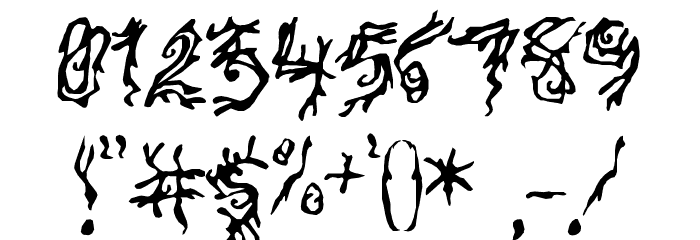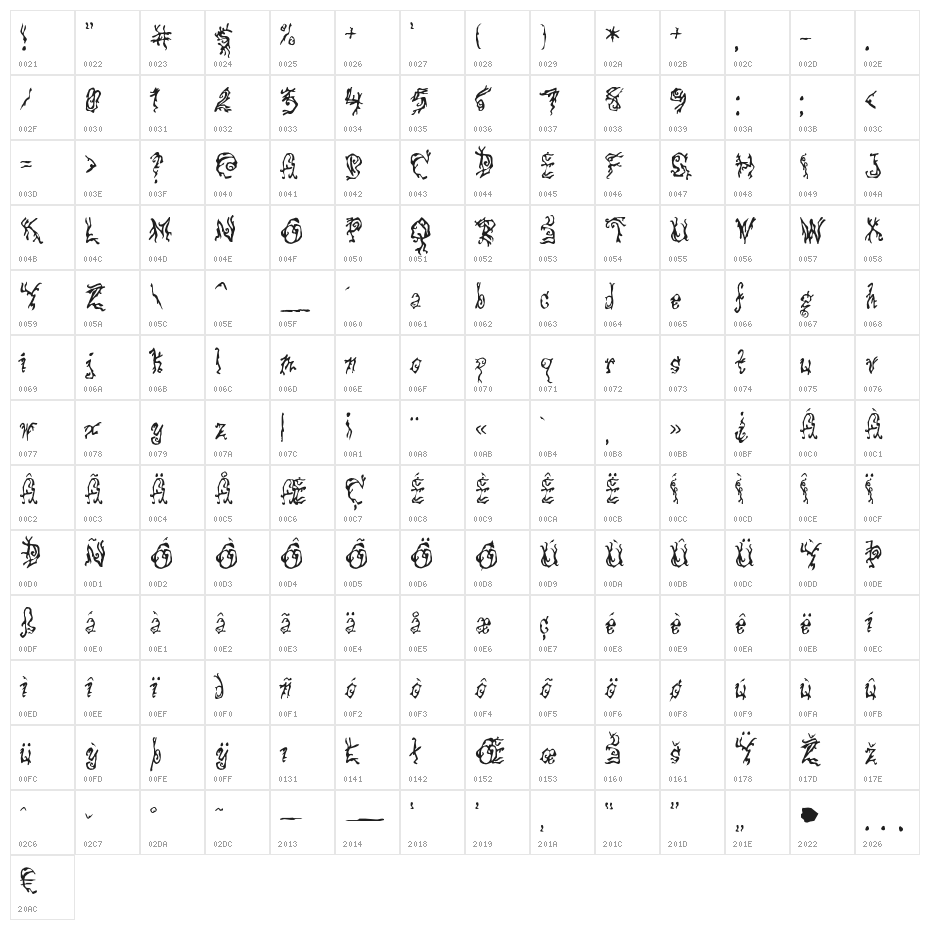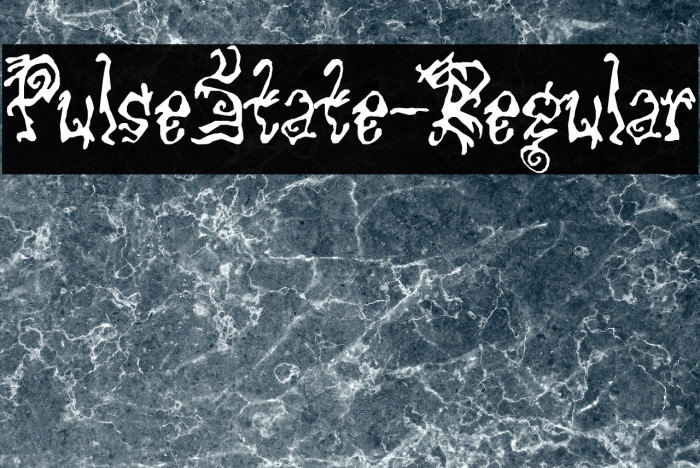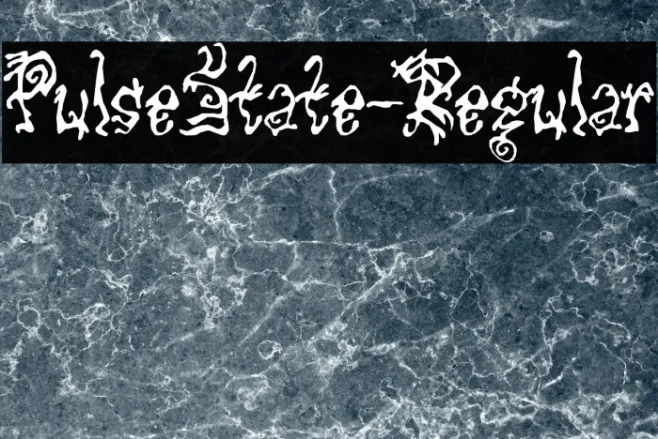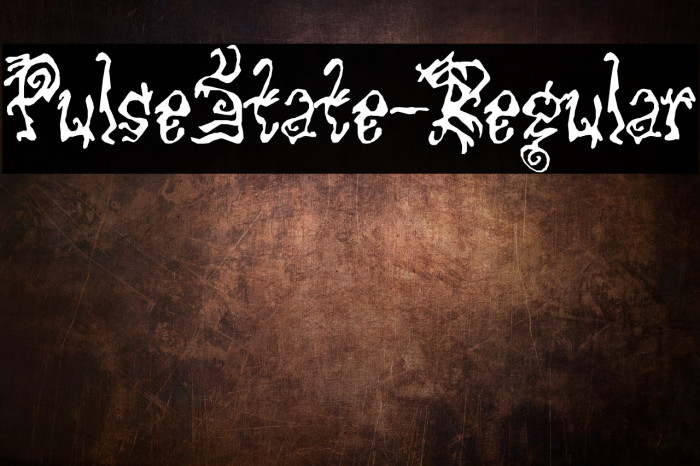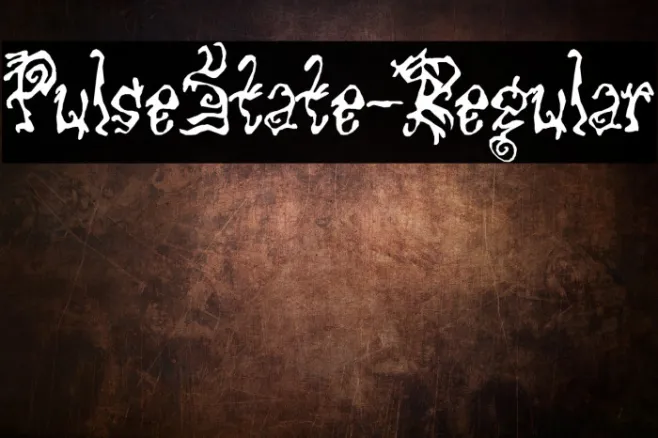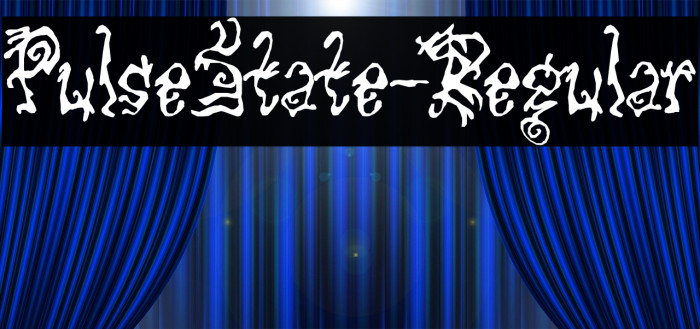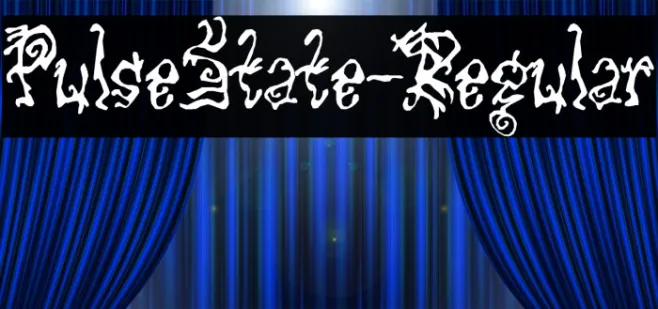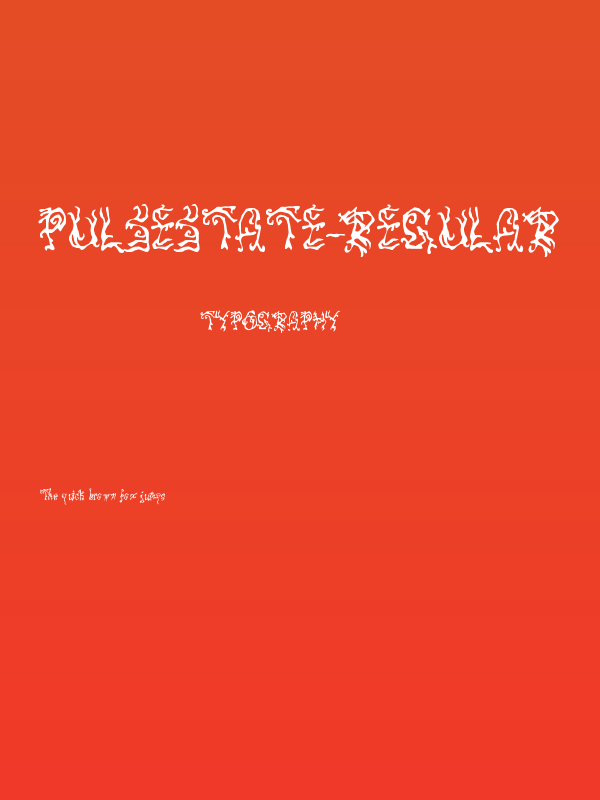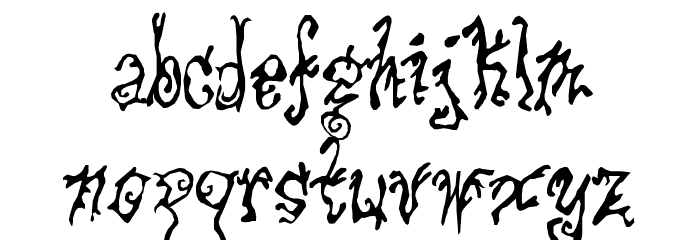
PulseState-Regular Font
PulseState-Regular Description
This font features a highly decorative and intricate design, with each character appearing as if it is composed of twisting, organic forms. The letters have a unique, almost chaotic appearance, reminiscent of vines or roots, giving it a wild and untamed aesthetic. The uppercase and lowercase letters maintain this theme, with consistent detailing that makes each character distinct yet cohesive within the set. Numbers and special characters follow the same style, ensuring a uniform look across all elements. This font's elaborate style makes it stand out, ideal for projects that require a bold and artistic touch.
| Use Case | Logos, Posters, Artistic projects |
| Proposed Projects | Ideal for fantasy-themed designs, artistic posters, album covers, or any project needing a bold, organic aesthetic. |